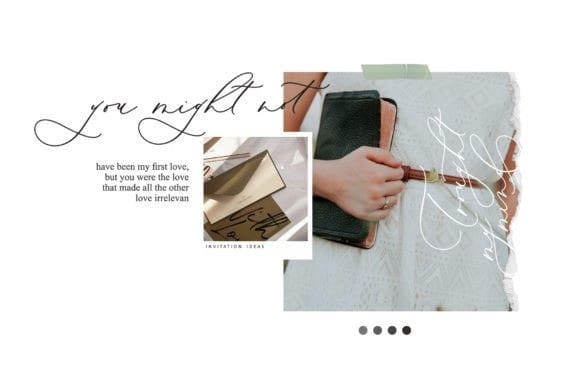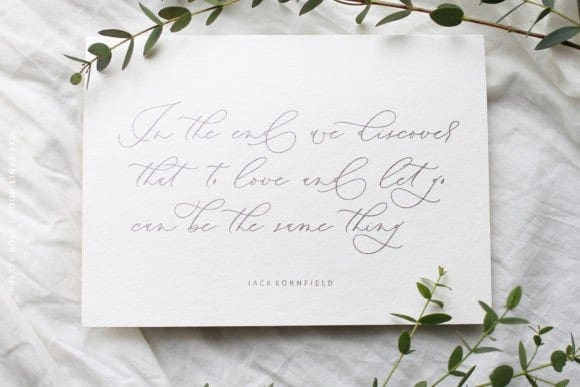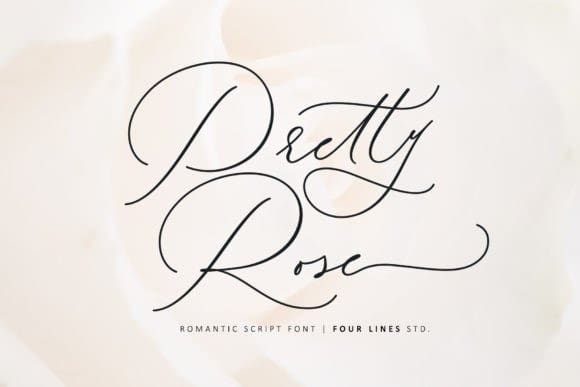
Pretty Rose Font
Pretty Rose Font is a sweet and delicate handwritten font. It features a varying baseline, smooth lines, gorgeous glyphs, and stunning alternates. Fall in love with its incredibly versatile style and use it to create spectacular designs!